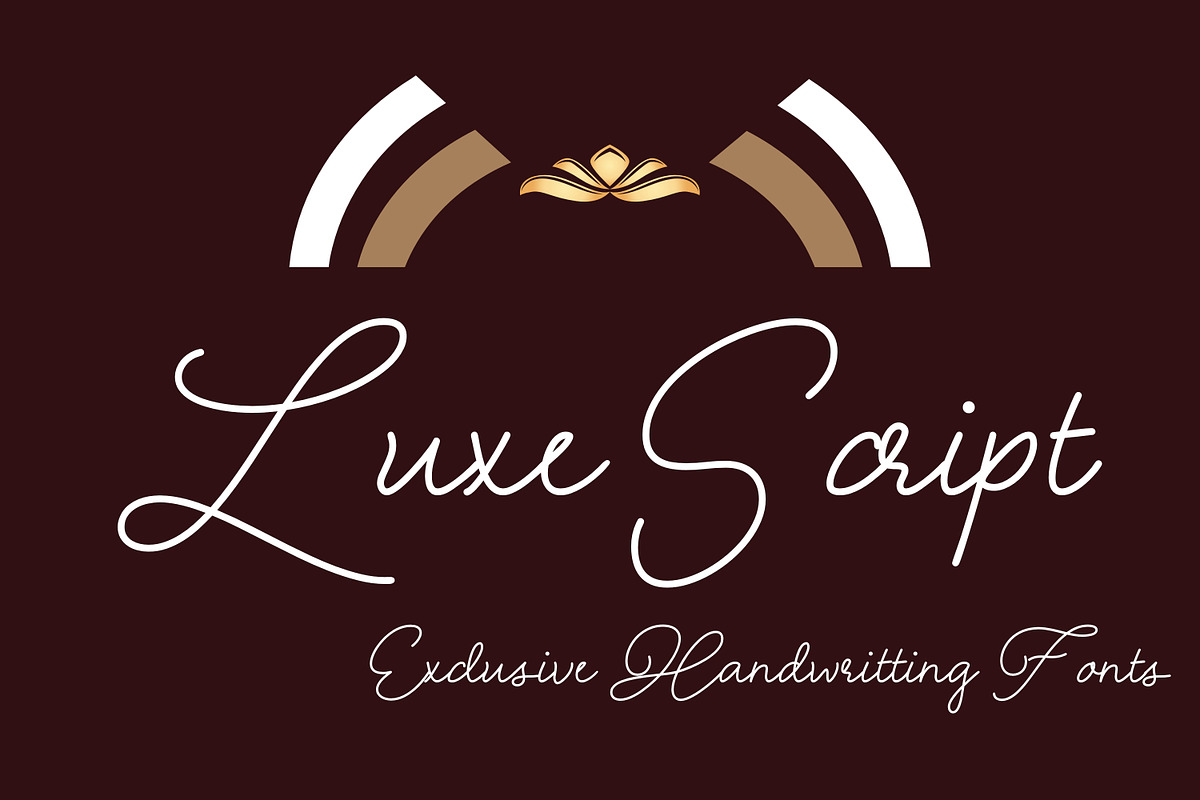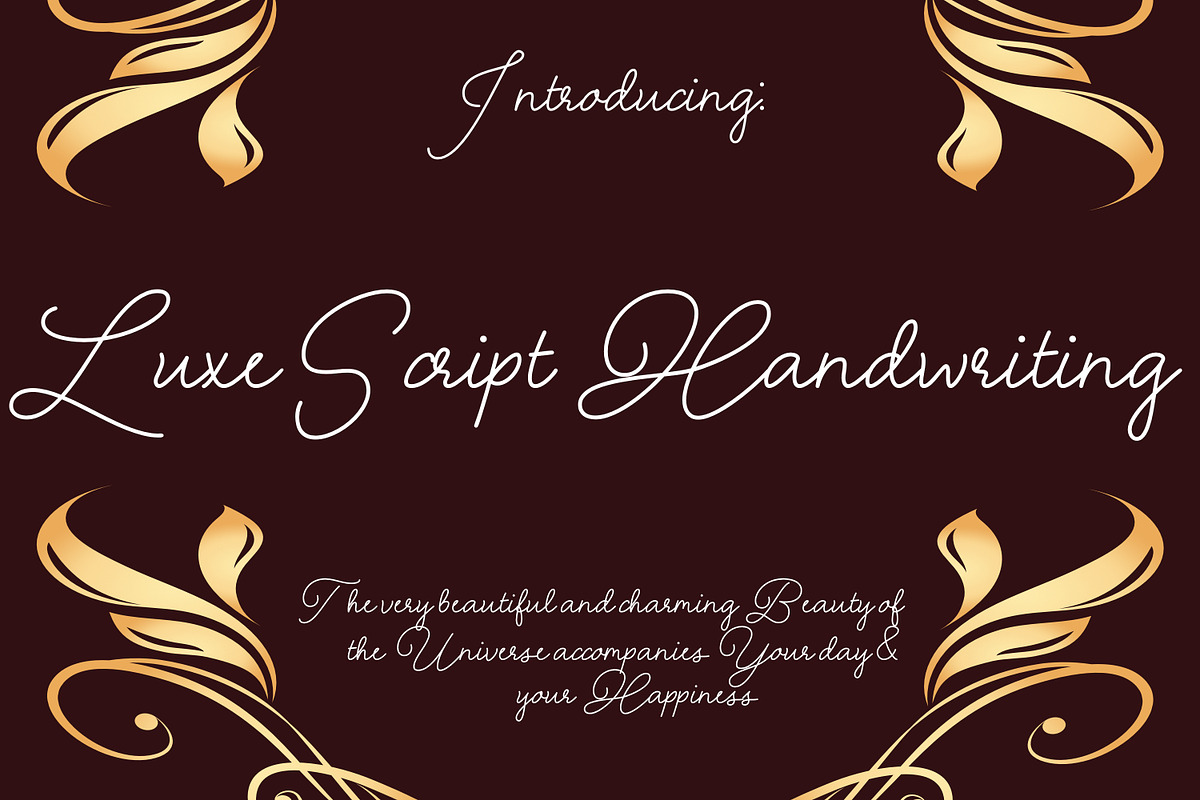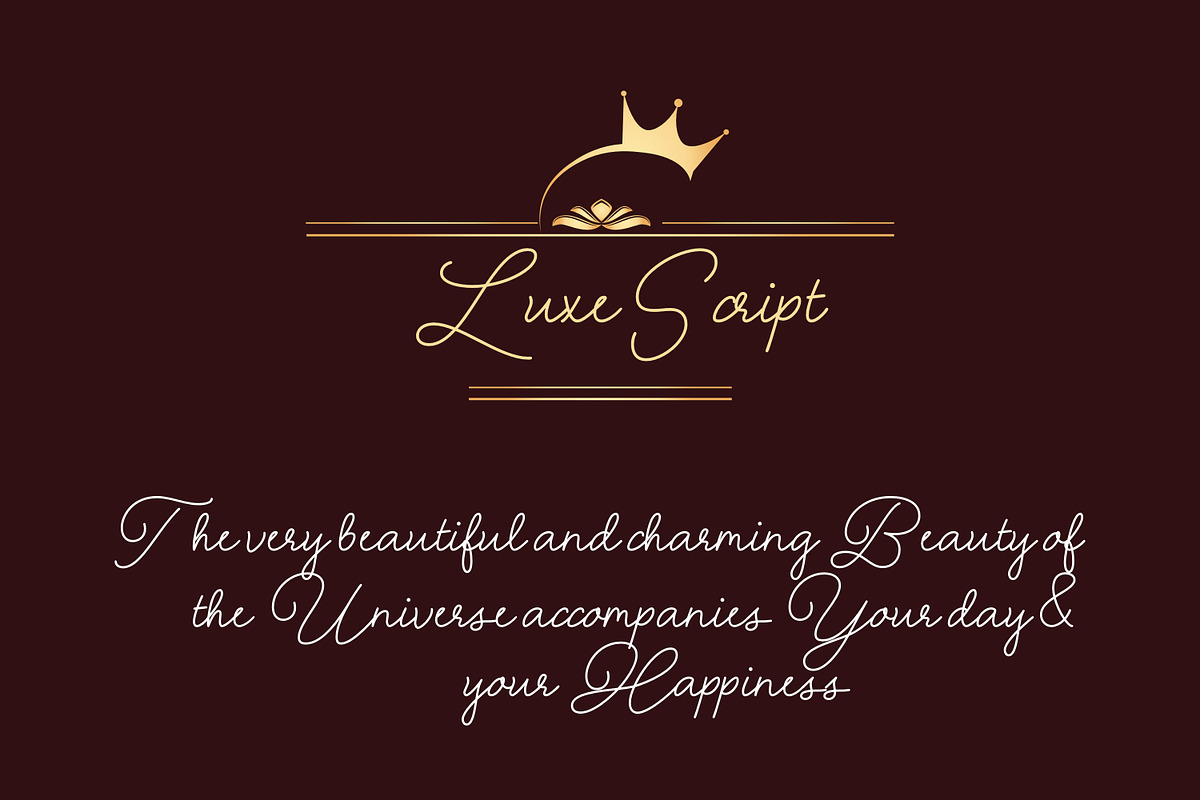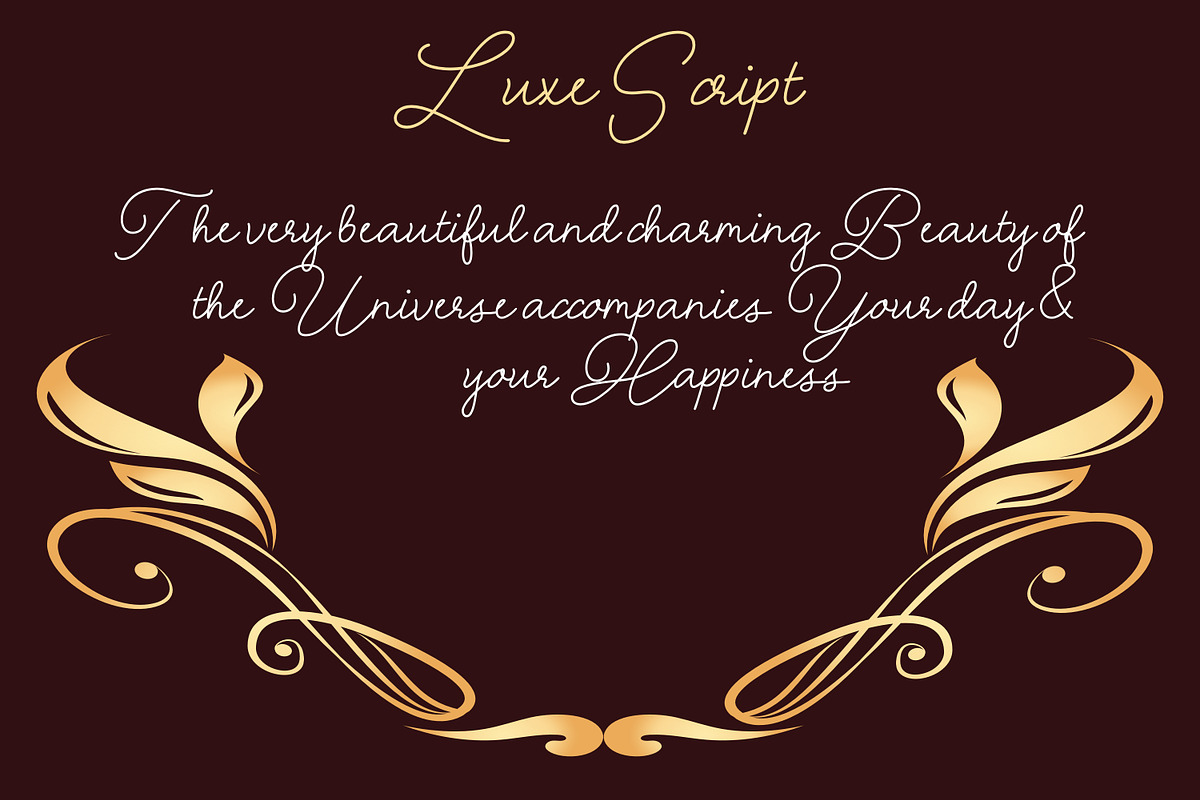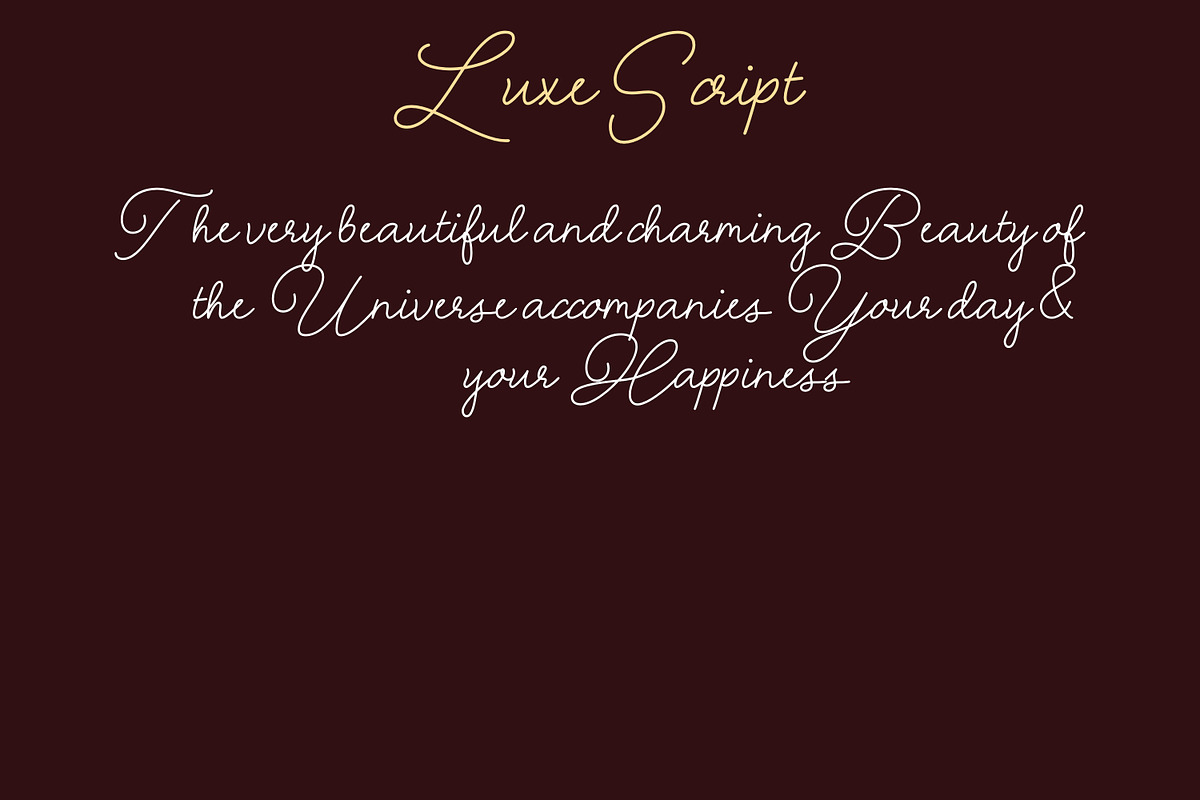
LuxeScript Handwriting
LuxeScript Handwriting is a luxurious and versatile handwritten script font, designed to bring a touch of elegance and warmth to your creative projects. Combining smooth, fluid strokes with a polished, professional aesthetic, this font is perfect for designers and creatives who want to add a sophisticated and personal touch to their work. Its clean yet intricate monoline design mimics authentic handwriting while maintaining excellent readability, making it an ideal choice for both print and digital media.
Whether you're designing wedding invitations, branding materials, logos, social media graphics, or greeting cards, LuxeScript Handwriting offers timeless charm and flexibility for any occasion. The font features a full set of uppercase and lowercase letters, numbers, punctuation marks, and multilingual support, ensuring compatibility for a variety of projects and languages.
Crafted with attention to detail, LuxeScript Handwriting also includes stylish ligatures and alternate characters, giving you the freedom to create unique, customized designs. Its balance between modern simplicity and artistic sophistication makes it a versatile option for designers looking to elevate their projects with a touch of luxury.